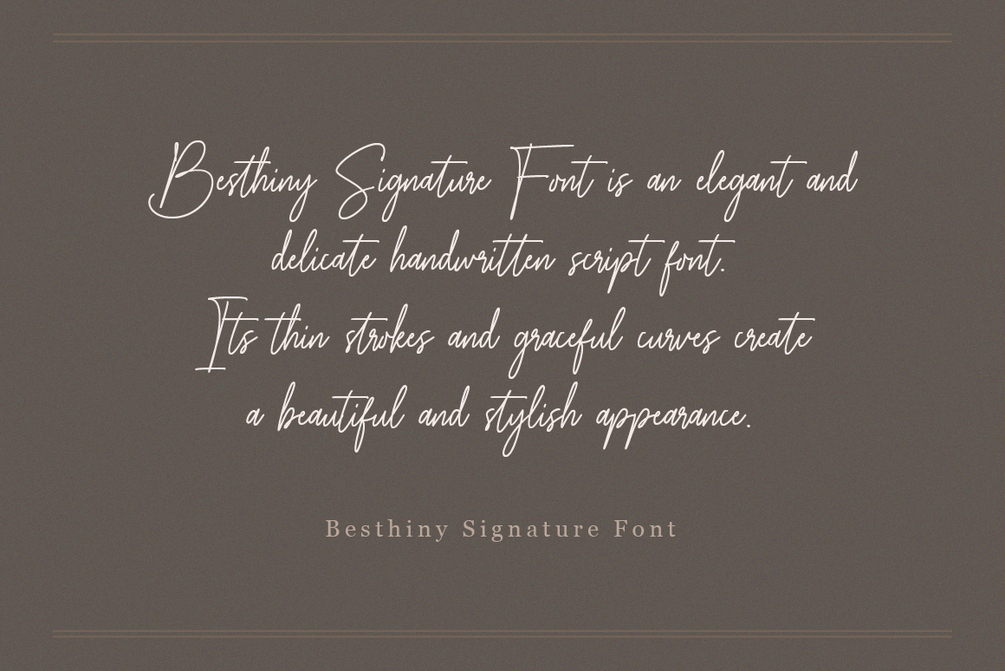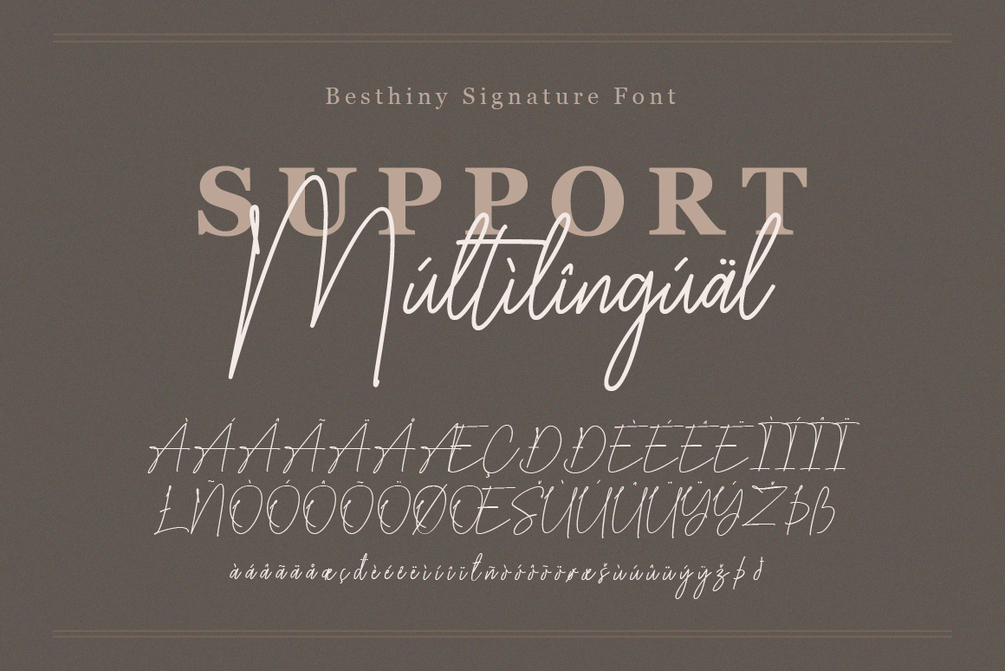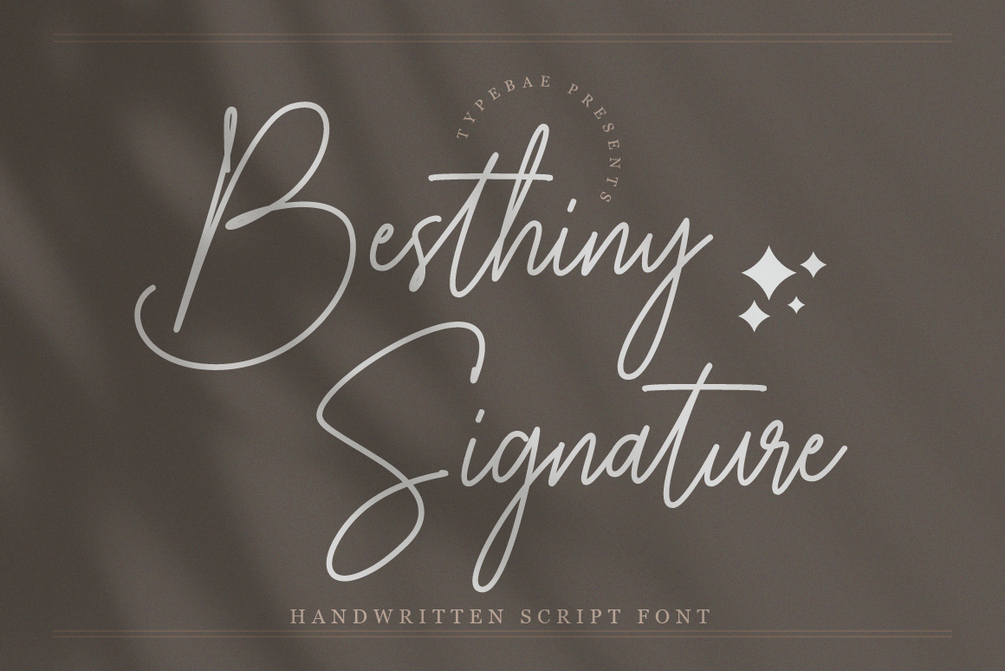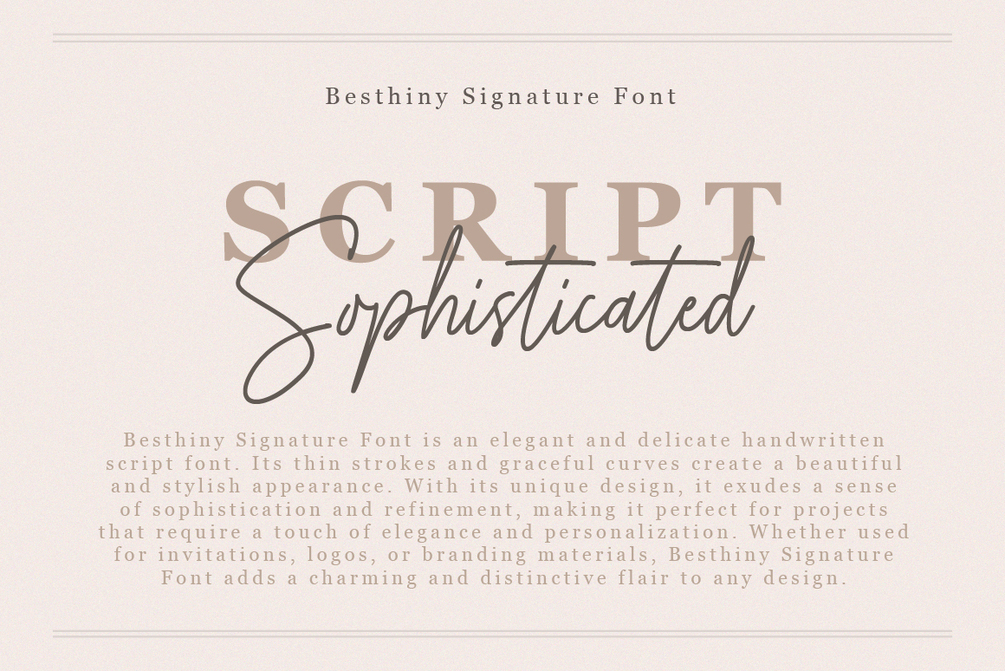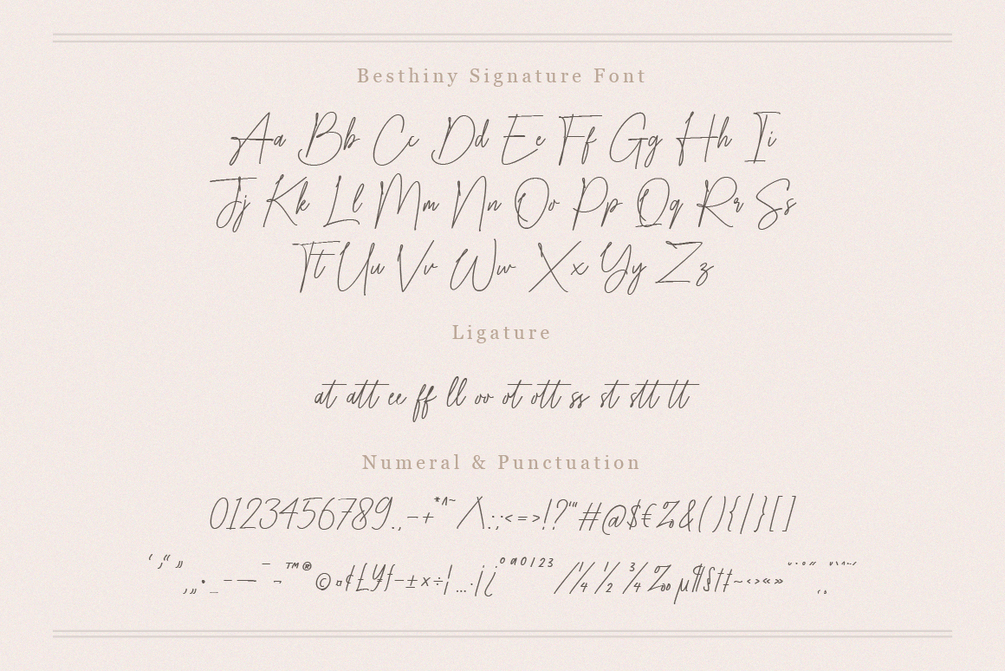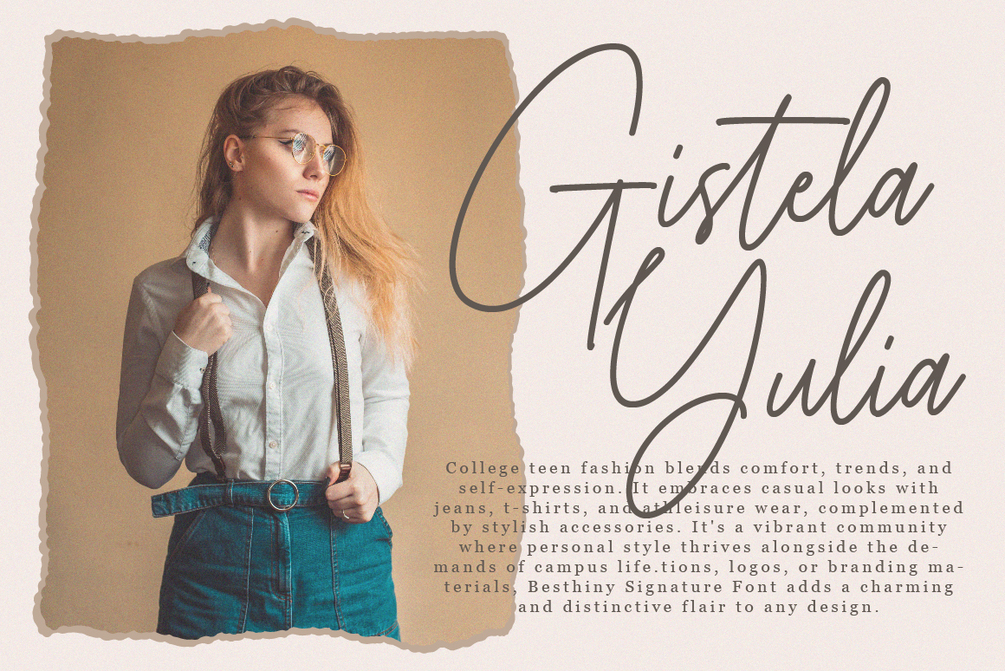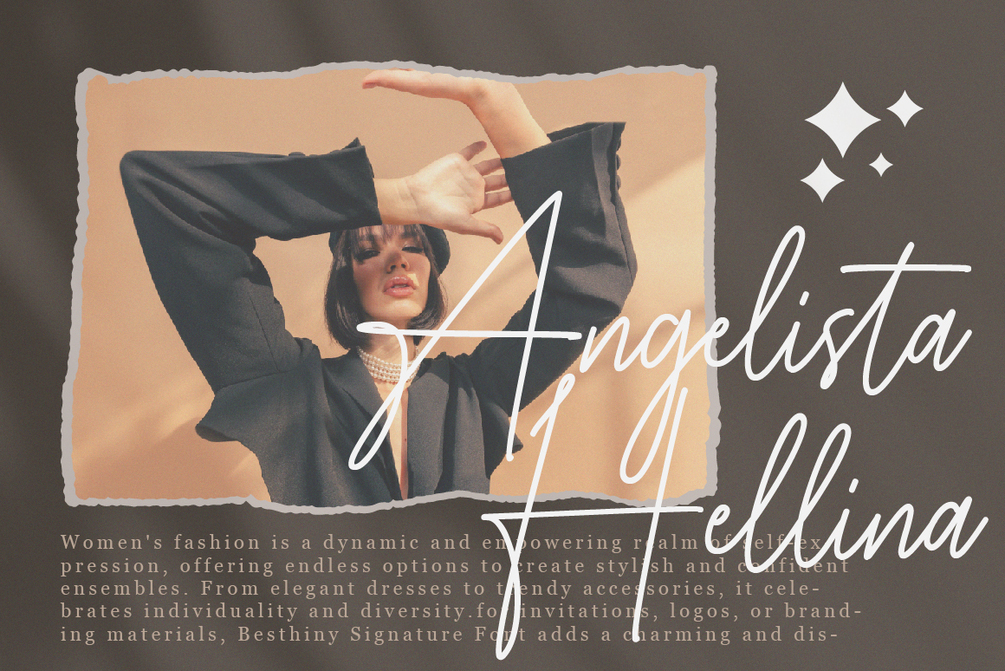
Besthiny Signature
Besthiny Signature Font is an elegant and delicate handwritten script font. Its thin strokes and graceful curves create a beautiful and stylish appearance. Whether used for invitations, logos, or branding materials, Besthiny Signature Font adds a charming and distinctive flair to any design.
* Full alphabet and punctuation
* Ligature feature
* Multilingual Support: Afrikaans, Basque, Breton, Catalan, Danish, Dutch, English, Finnish, French, Gaelic (Irish, Scots), German, Icelandic, Indonesian, Irish, Italian, Norwegian, Portuguese, Saami (Southern), Spanish, Swahili, Swedish.